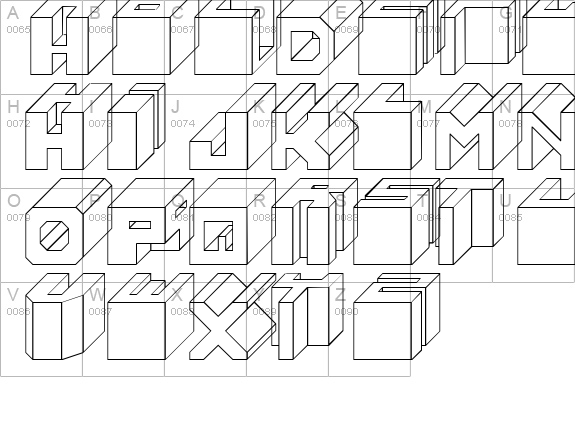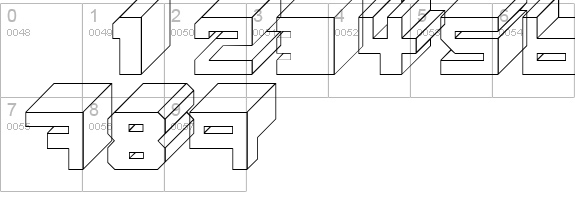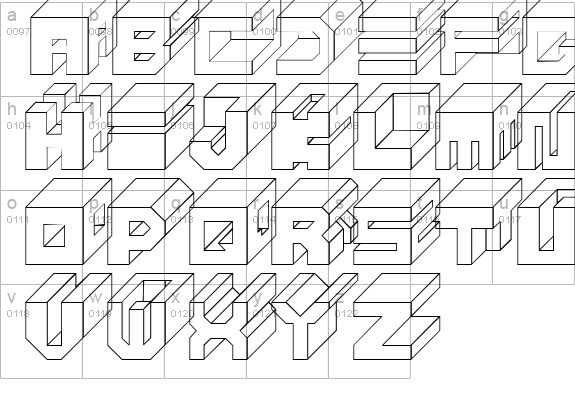
Cube Font Details
Introducing Cube font, a modern and stylish typeface that brings a touch of sophistication to any design project. The clean lines and geometric shapes of Cube font make it perfect for a variety of purposes, from branding to editorial design. Its sleek and contemporary look will surely catch the eye of your audience. What's even better is that Cube font is available for free download at FontsMarket.com. Yes, you read that right - you can easily get your hands on this stunning font without having to spend a dime. Don't miss out on the opportunity to elevate your designs with Cube font today!